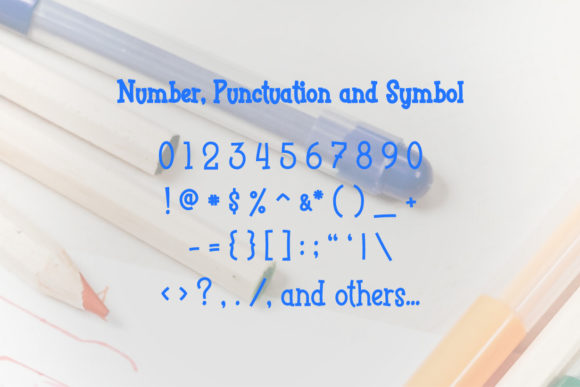
Funyard Font
Funyard is a playful and friendly slab serif font. It embodies fun, uniqueness and authenticity. This dazzling font will turn any creative idea into a standout!